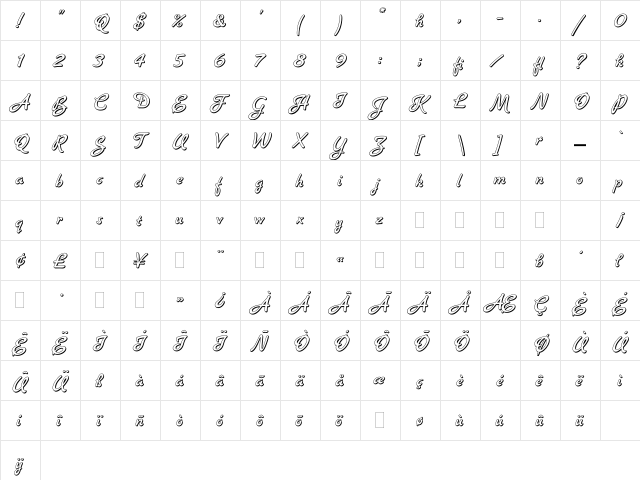
Banner LET Plain
Design Context for Banner LET Typeface
Banner LET is a composed and adaptable typeface that performs quietly and consistently across a wide range of design contexts.